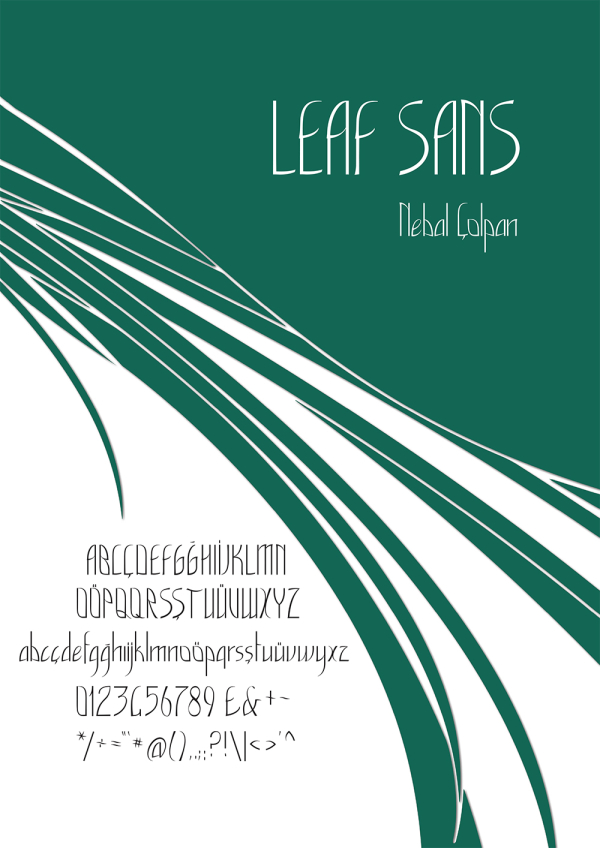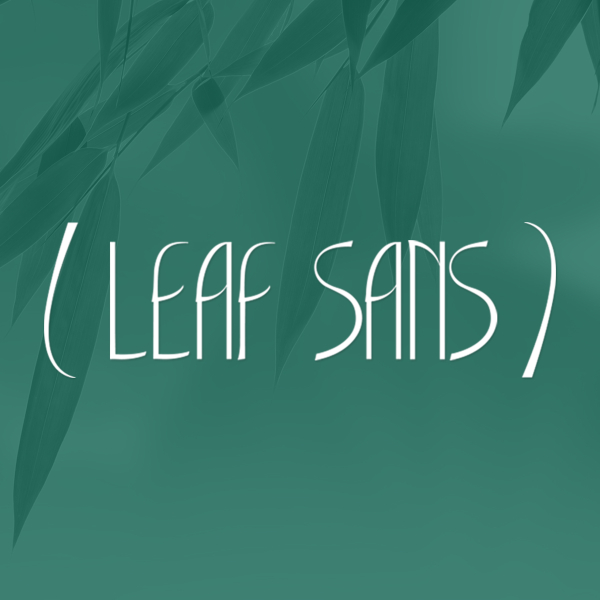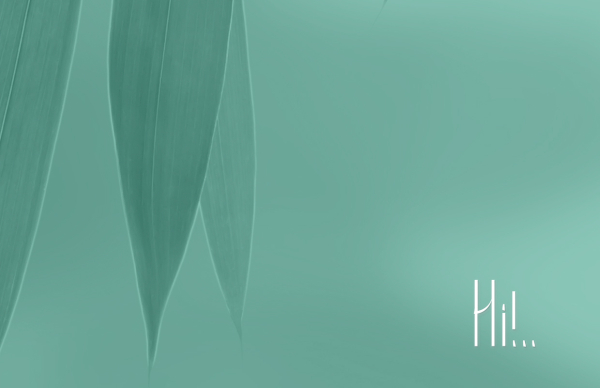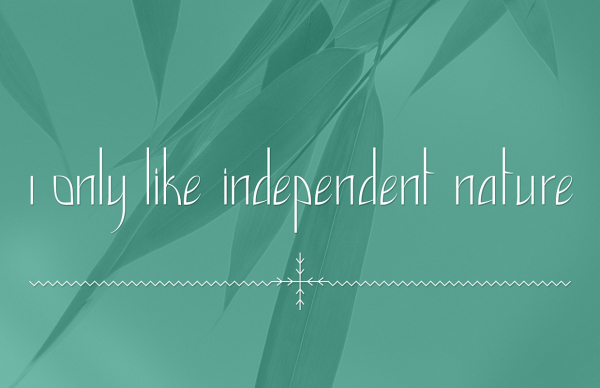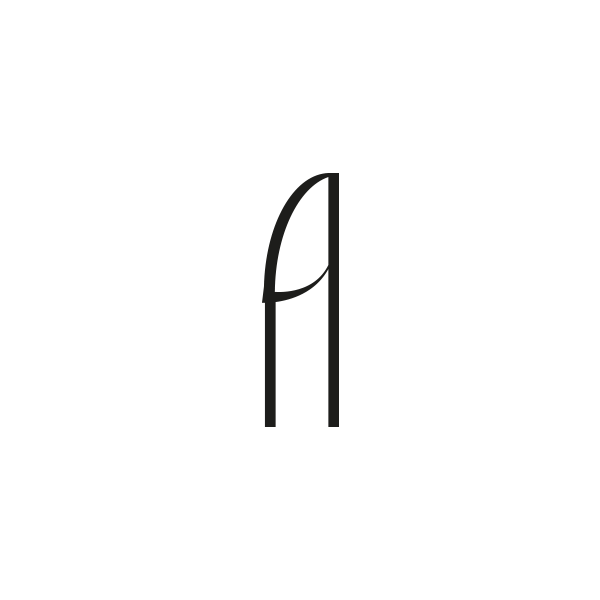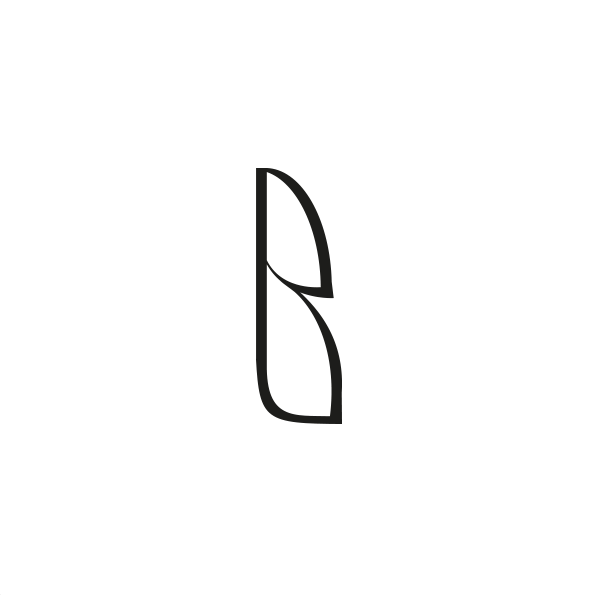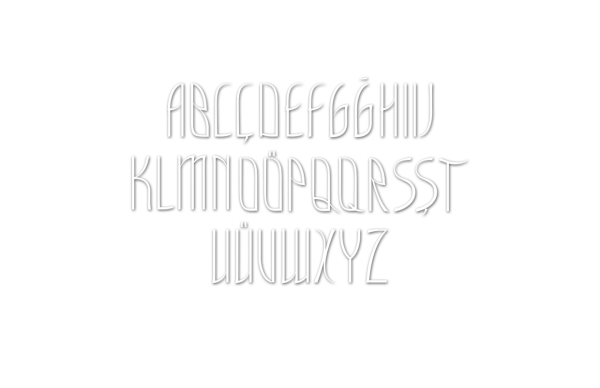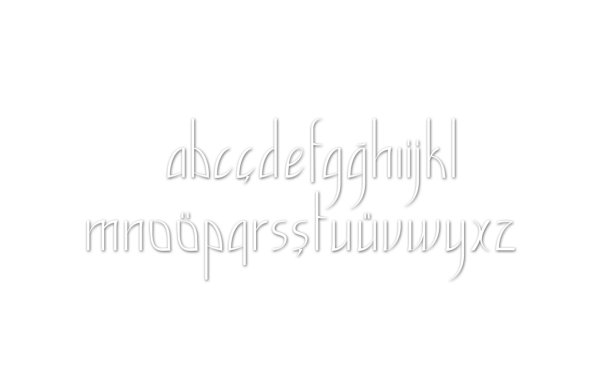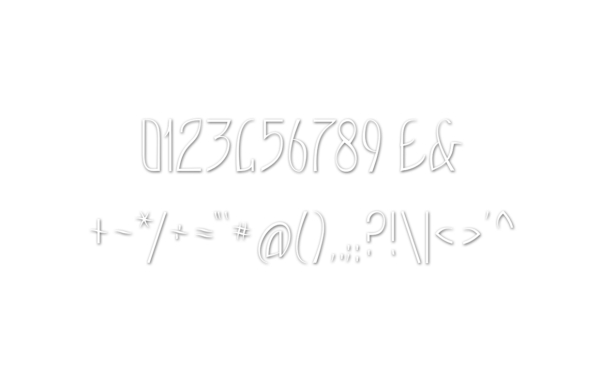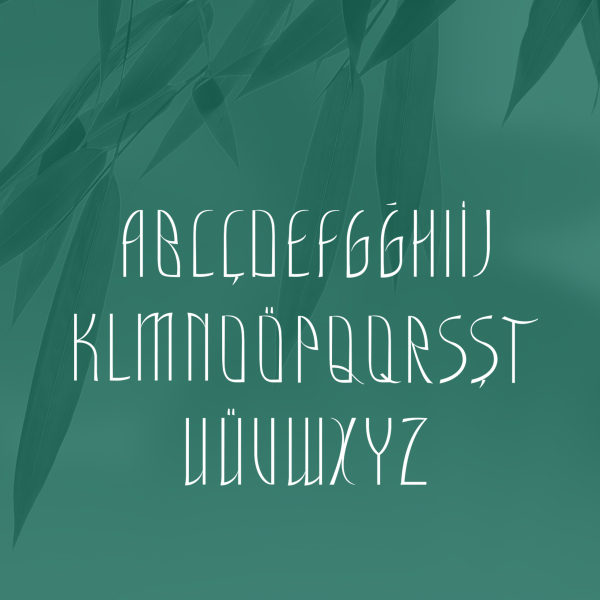
Leaf Sans
Leaf Sans Font
Leaf Sans is a kind of font inspired by nature and form of leaf. This font works well for the poster design, slogan, typography study and it can use for short text.
Designer: Nebal Çolpan
Leaf Sans is a kind of font inspired by nature and form of leaf. This font works well for the poster design, slogan, typography study and it can use for short text.
Designer: Nebal Çolpan